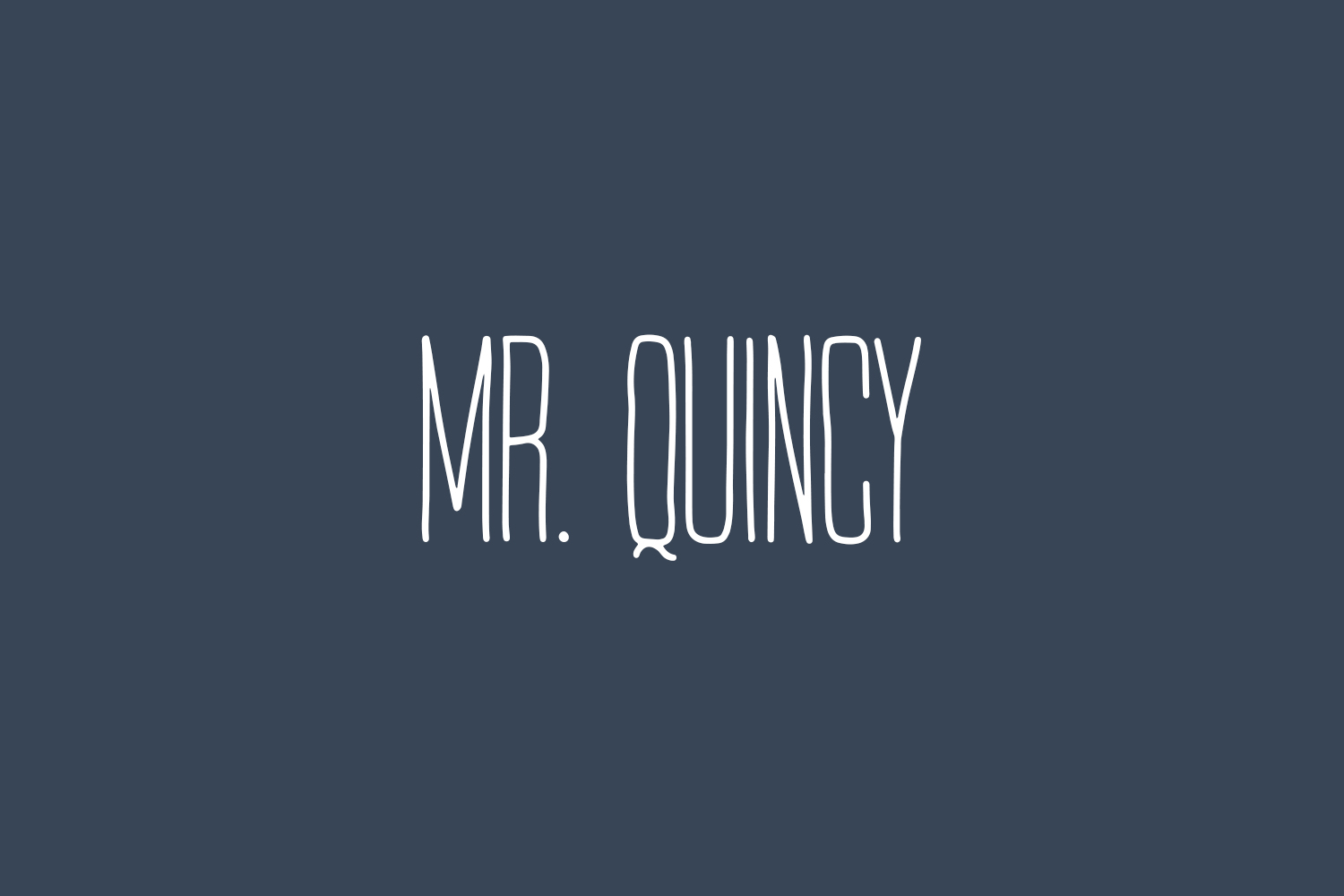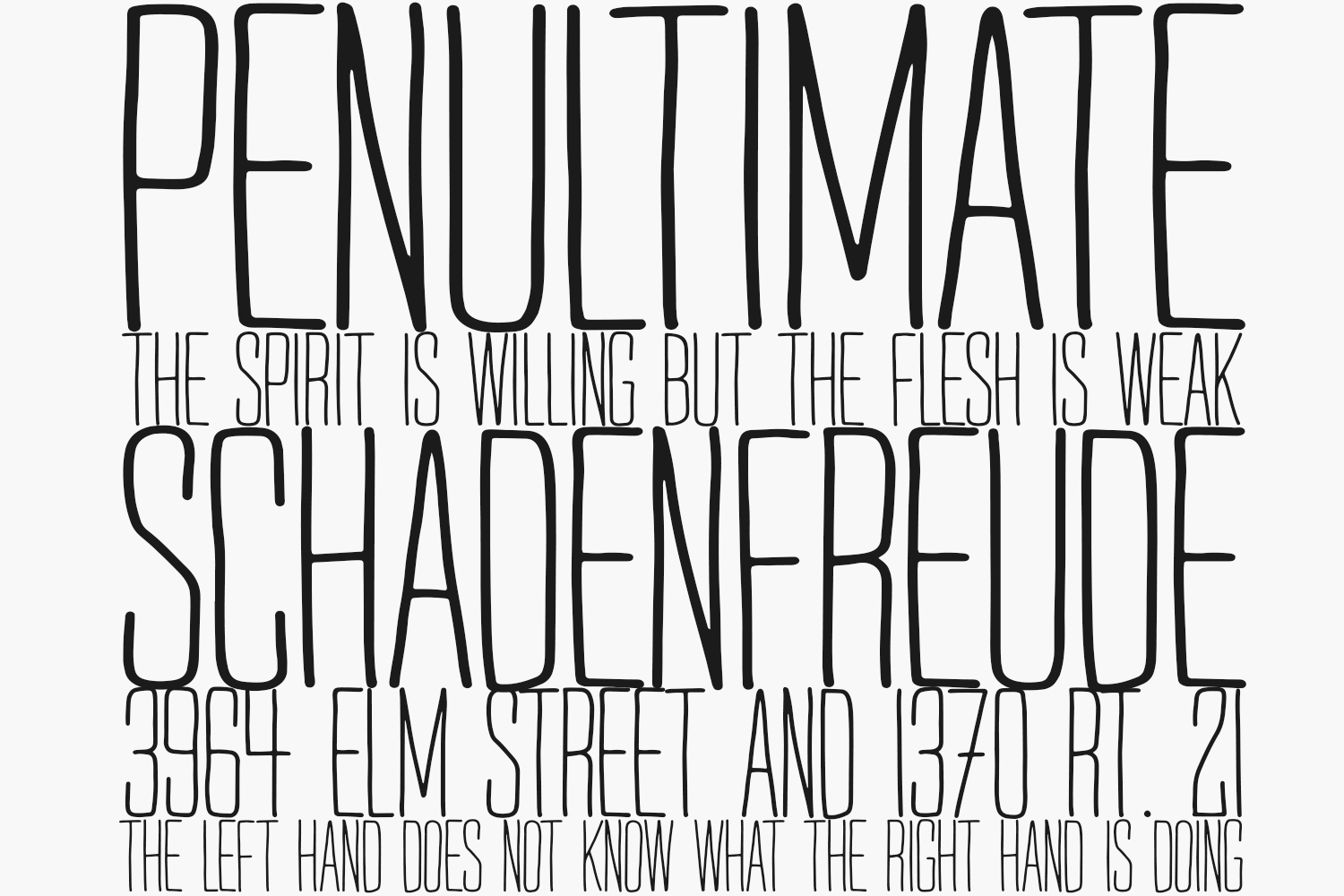
Mr. Quincy Free Font is a suitable handwritten typeface for your gorgeous headlines and titles. You can also use Mr. Quincy Font typeface for professional signatures, Quotes, Billing projects, general reports, and only one typeface that is always considered for card designs such as business cards, invitations cards, wedding cards, and many other related designs. You can also make amazing logo designs with the use of this typeface as well as Book Covers, Posters, Banners, Website, and Blog template designs, product packaging, and is also perfect for printing projects.
You can also specify this font family in the CSS. This is a style sheet language that is used for the presentation of your document written in HTML code. This is an extraordinary handwritten typeface that provides a classy look to designs and is specially designed for those, who want to bring a unique look to their designs. It is also very compatible with Windows, MAC, Linux, Android, and many other operating systems. Whiteboard Font, Betty Jane Light Font, Gina Bina Regular Font are the most similar fonts to the Quincy font and you can also try these fonts instead of this font.
There are many similar and alternative fonts you can find on the web but the best match fonts to Mr. Quincy are Maggie, Mae Font, Whiteboard Font, Betty Jane Light Font, Gina Bina Regular Font, Cheesy Enchilada Font, and many more. This typeface is highly used for Art designing purposes and you can use this typeface with the combination of many other typefaces for your attractive designs.
In addition, the characters of this typeface are also perfect for printing projects like T-shirt design, Mug designs, Business, and invitation cards designs, Banners, Book covers as well as for web designs such as Logo designs, Banners, Posters, Large paragraphs, Branding projects, product packaging, and many related designs. Many Corporations and Companies using the typeface for their usual website design.